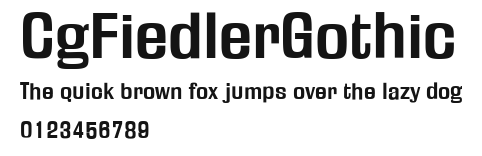
• Font Name: CgFiedlerGothic
• Full Font Name: CgFiedlerGothic-Bold
• PostScript Name: CgFiedlerGothic-Bold
About CgFiedlerGothic.ttf
CgFiedlerGothic.ttf is a modern, elegant sans-serif font designed for ultimate readability and visual harmony. Perfect for branding, headlines, web design, and print materials.